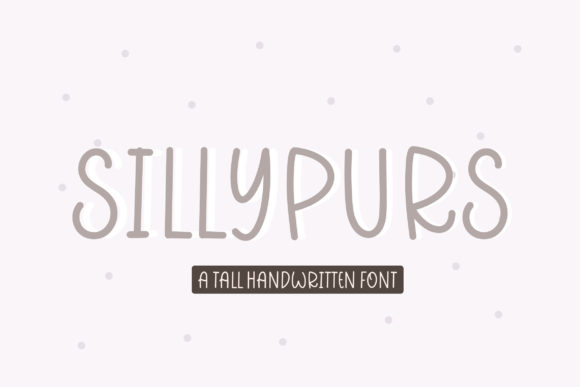
Unleash your creativity with Sillypurs Font, a delightful handwritten font that brings a touch of whimsy and charm to your designs. This captivating script font exudes a playful and inviting personality, making it perfect for adding a personal touch to your projects.
Step into a world of endless possibilities with Sillypurs Font, where your imagination takes center stage. With its charming and authentic handwritten style, this font is a versatile tool for creating unique and eye-catching designs. Whether you're crafting chalkboard quotes, teaching materials, or personalizing invitations, Sillypurs Font is your perfect companion.
Discover the magic of Sillypurs Font and let your designs come alive! Its playful and inviting nature will add a touch of warmth and personality to any project, making it stand out from the crowd. Dive into the world of artistic expression and let Sillypurs Font guide you on a journey of creativity.